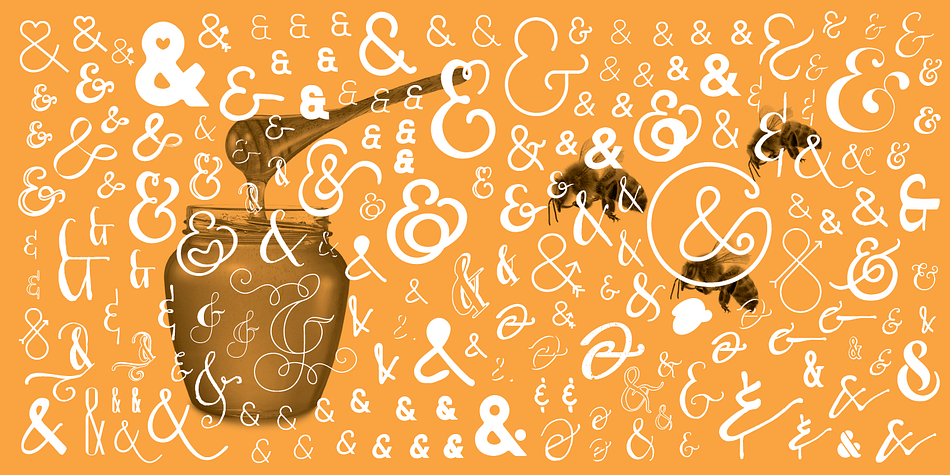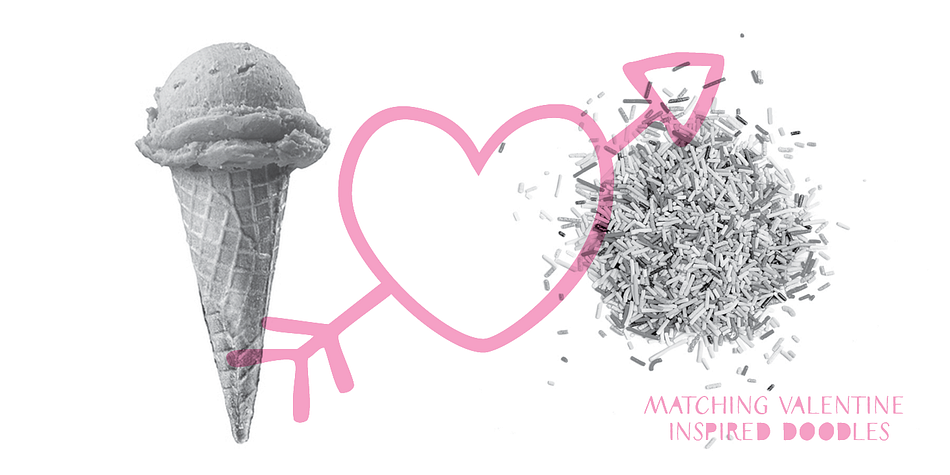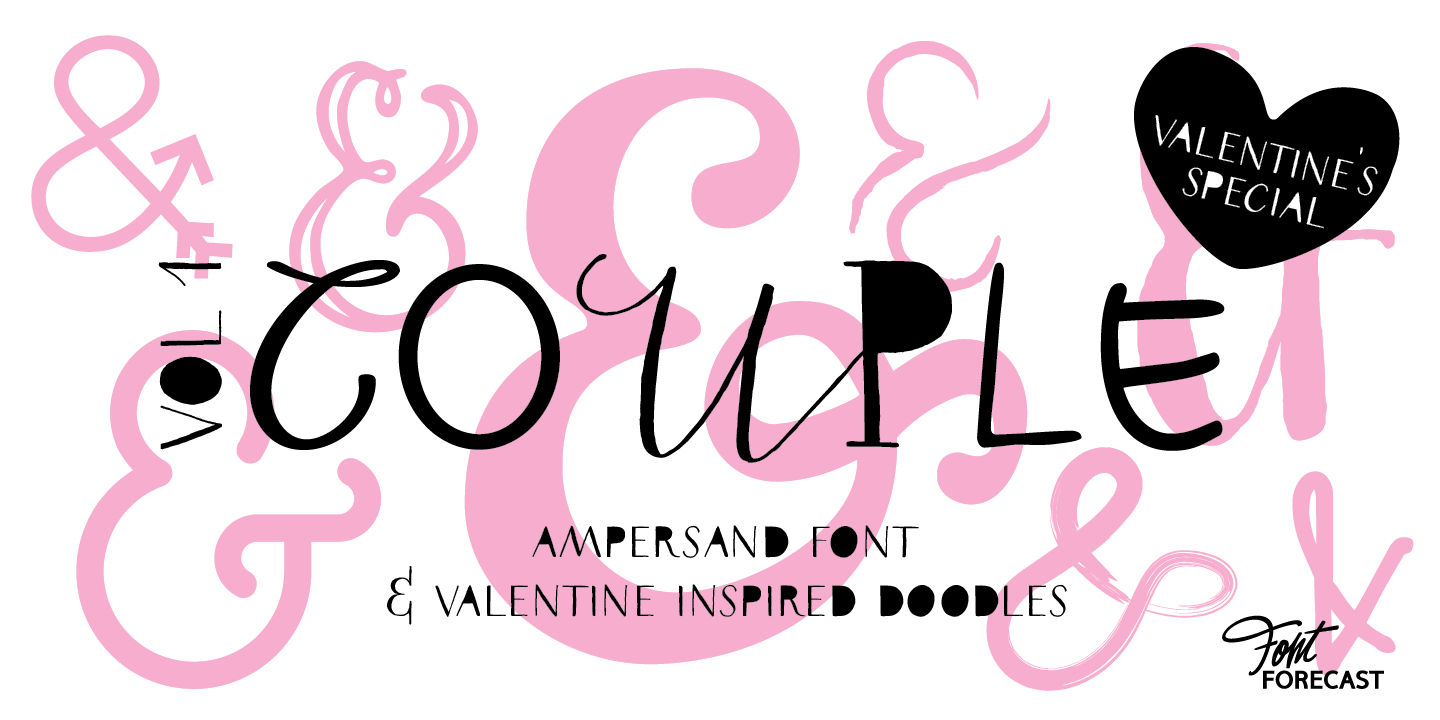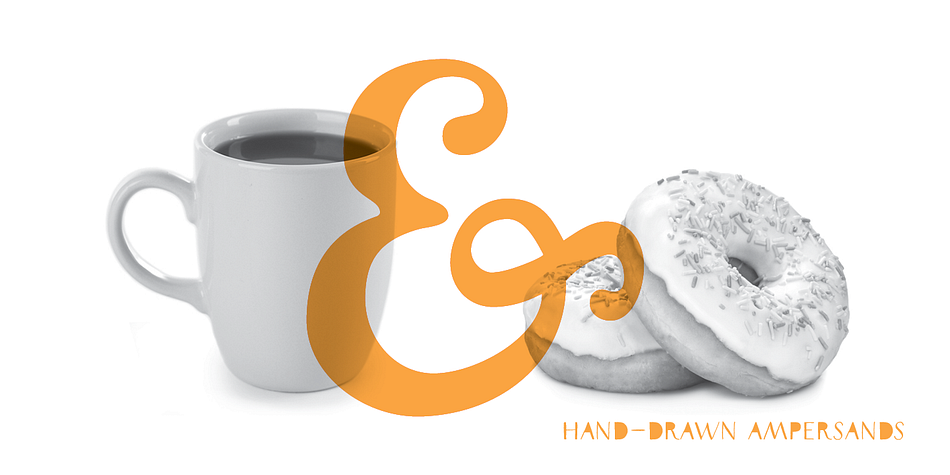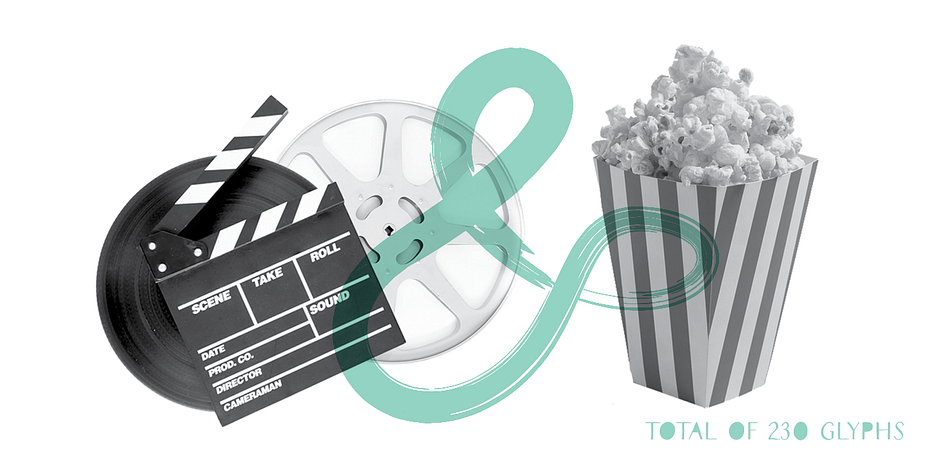
Designed by Marloes Versluys, Couple Vol1 is a dingbat font published by Fontforecast.
Couple vol1 is an extensive ampersand font with 230 glyphs and Valentine inspired doodles, handmade with love. To accentuate two words or names in your text we designed these fun expressive ampersands. Couple vol1 contains a wide variety of styles, some glyphs can even be layered. You will surely find the perfect match for your Valentine project, wedding invite, logo design, etc. Everything is better together!